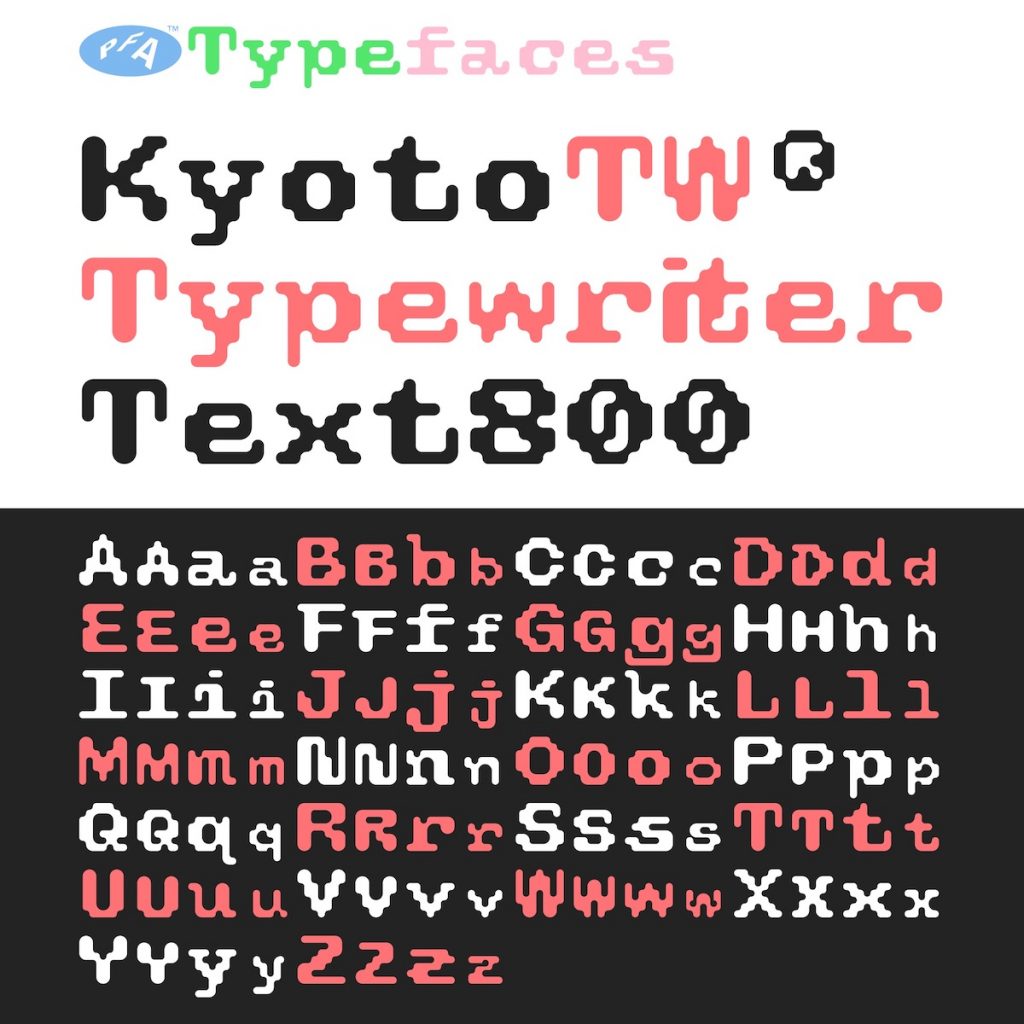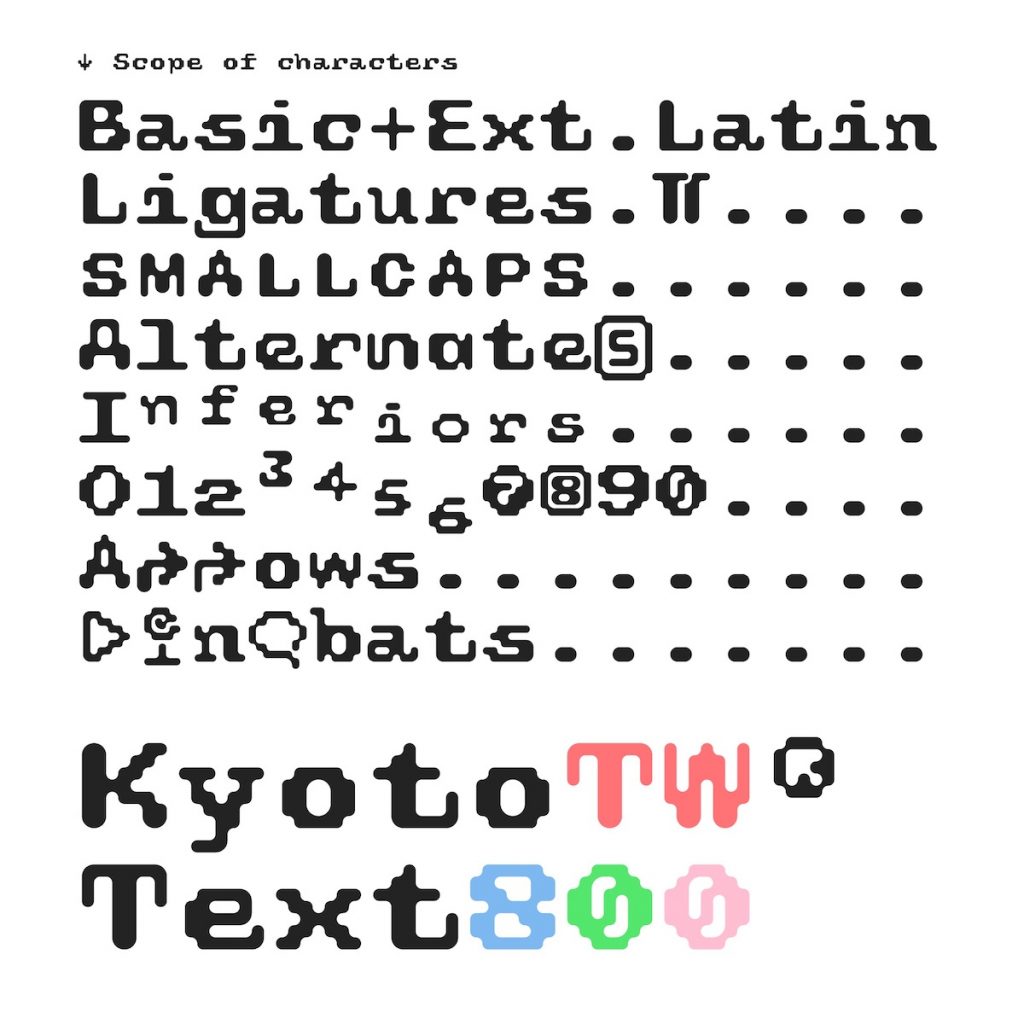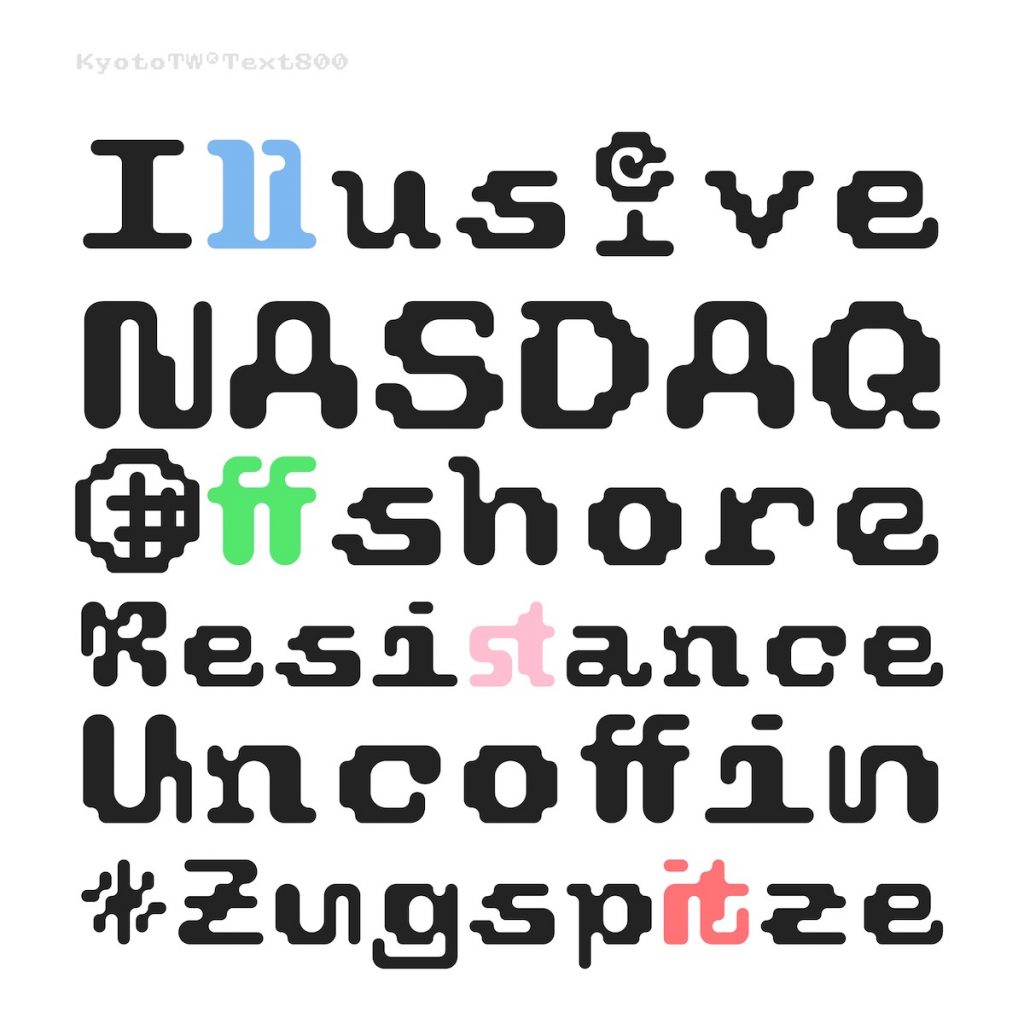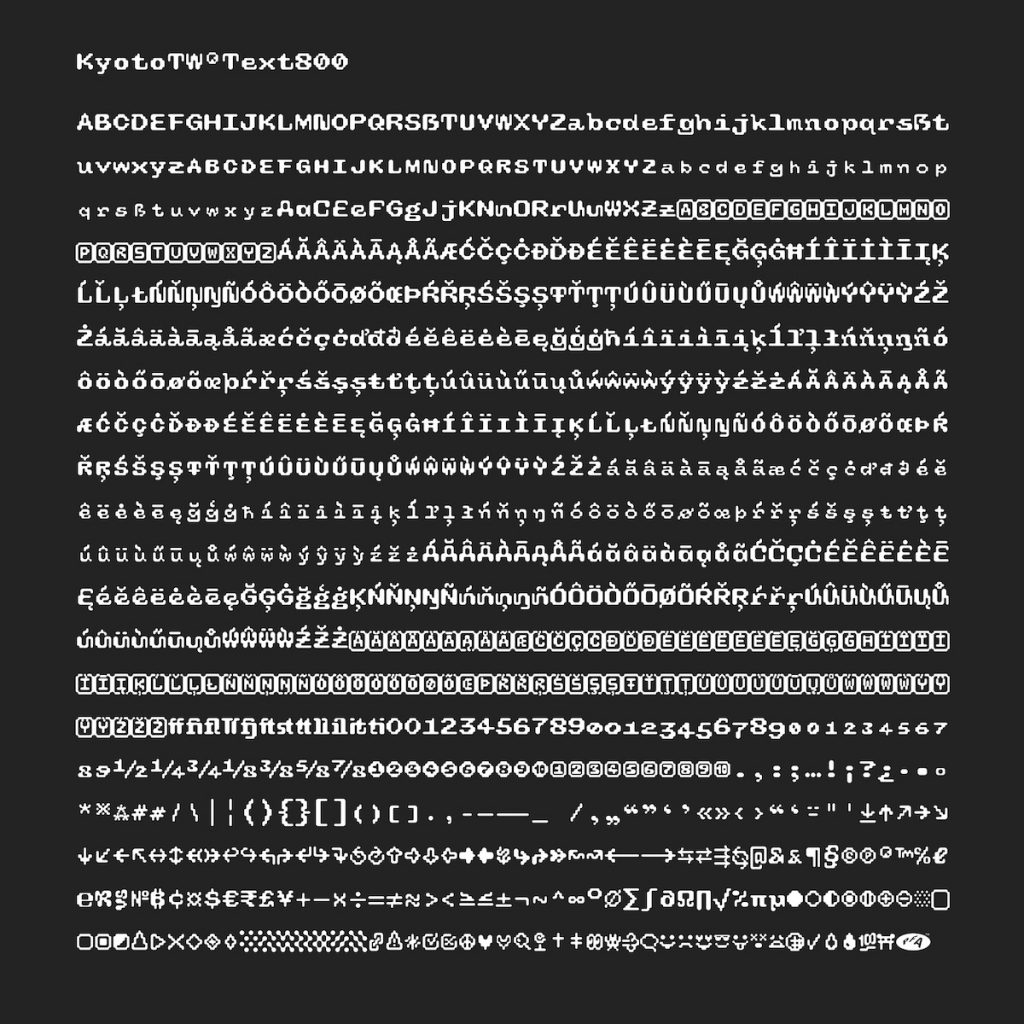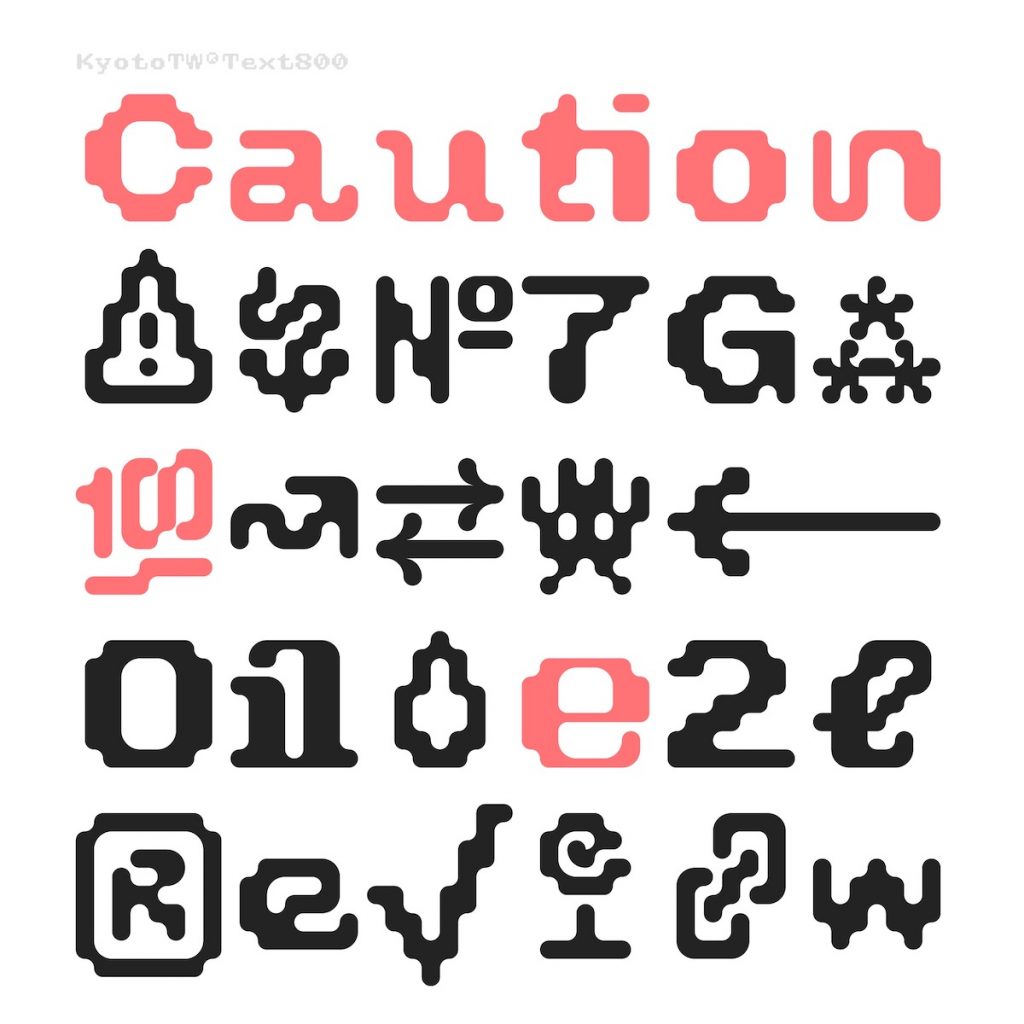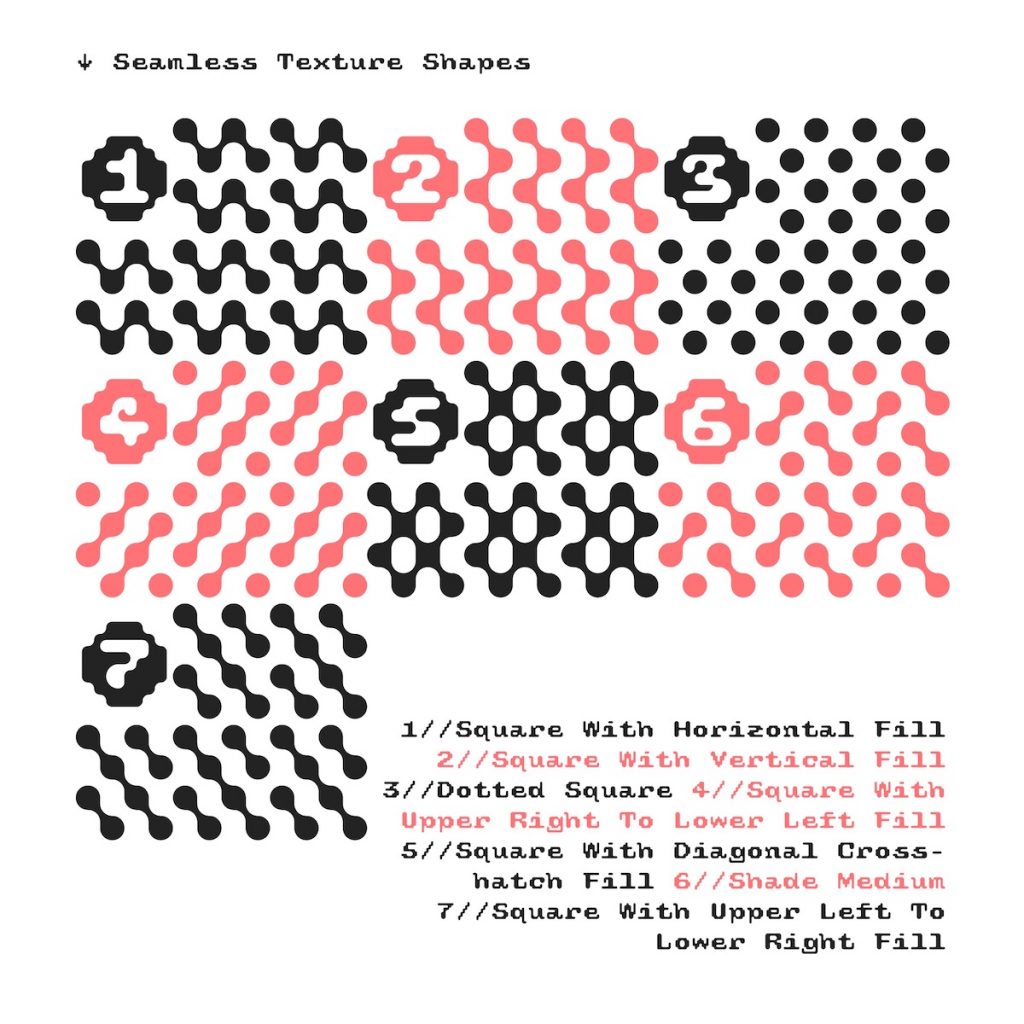
Name: KyotoTW
Designer: Martin Aleith
Foundry: PFA Typefaces
Release Date: May 2021
Back Story: Berlin-based PFA Studios collective (former known as Pfadfinderei) recently formed its dedicated type branch, PFA Typefaces. Its designer, Martin Aleith, had been designing fonts for around 20 years in his role as a graphic designer. He’d long been creating unique type for music artwork projects, and wanted to start the PFA Typefaces platform to share these typefaces with other designers.
KyotoTW is one of the first typefaces to be officially showcased on the platform, which displays fonts through the playful, interactive “toys” tool. Aleith made the first drafts of KyotoTW typeface in 2019, initially building a preliminary alphabet quickly and using the font on flyers, posters and T-shirts. He then worked to revise and expand the character set throughout 2020. “I’ve always wanted to design a monospaced font,” he says. “Since I’ve come into contact with computer games a lot more than with typewriters in my life, I preferred to orient the KyotoTW towards the digital-retro look. It’s a reminiscence to all the typefaces that were born with the machines and died with them.”
While the designer says the typeface harks back to both retro compute games and typewriters, he’s keen to emphasise that he didn’t directly look at any historical fonts or video game lettering for inspiration. “I didn’t want to imitate anything typical,” says Aleith. “I wanted to develop all glyphs without visual influence.”
Why is it called Kyoto?
The “TW” in KyotoTW is an abbreviation of “typewriter,” since the typeface that tries to mimic the appearance of type-written letters, with an added nod to early console game fonts. The “Kyoto” of the name references that, since it’s taken from a video game company headquartered in Kyoto, Japan.
What are its distinguishing characteristics?
KyotoTW has distinct vertical stems of different widths, imitating certain features of type-written letters such as the accumulation of ink on paper. Thus far, KyotoTW is available in one weight, dubbed Text800, with a character spanning 1,135 glyphs. “The typeface simulates the blending between the historical link to typewriters and video game consoles,” according to PFA Typefaces.
Aleith says that one snag during the design process was creating “the greatest possible differentiation between the letter shapes,” which meant more time spent on kerning. “The challenge here was to design each character in the same space and in a way, that makes the characters quickly recognizable.”
KyotoTW was deliberately designed to prize legibility, and as such, it works well as a bold display typeface as well as in across the smallest text sizes.
What uses do you think it would be suited to?
KyotoTW is outlandish, stand-outish, and no shrinking violet—despite its undeniable legibility. “It has become a very pretentious typeface. Very loud… very spectacular,” says Aleith. As such, it would work well as a promotional tool, perhaps on event materials, campaigns, or posters. “I am always enthusiastic when corporate designs are featured exclusively by one typeface,” he adds, suggesting that the typeface would be pretty great emblazoned on the back of a jersey.
What typefaces do you like to pair it with?
Since KyotoTW is pretty distinct and unusual, the obvious suggestion would be to pair it with a more formal or inconspicuous typeface. However, Aleith suggests going all out and “putting KyotoTW next to another freak.” He adds that it would also work well with some of the other outlandish, striking fonts in the PFA stable, such as Haben or Quartier.